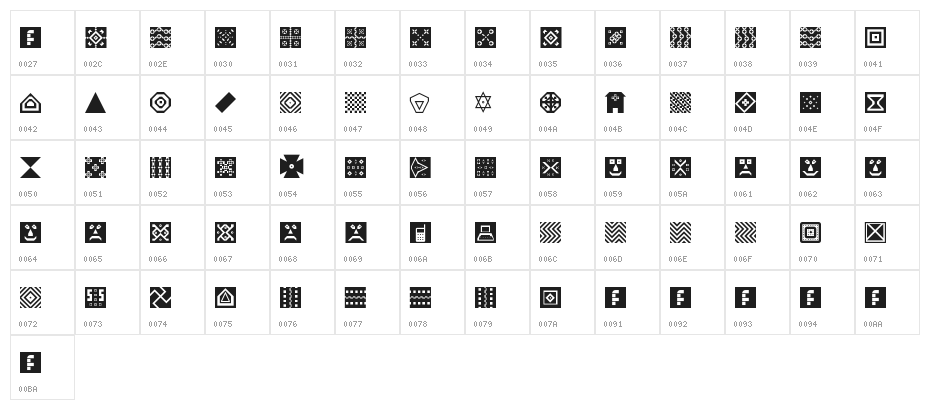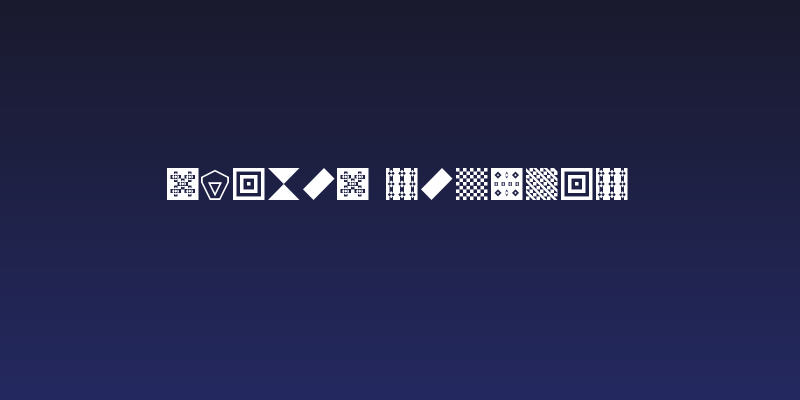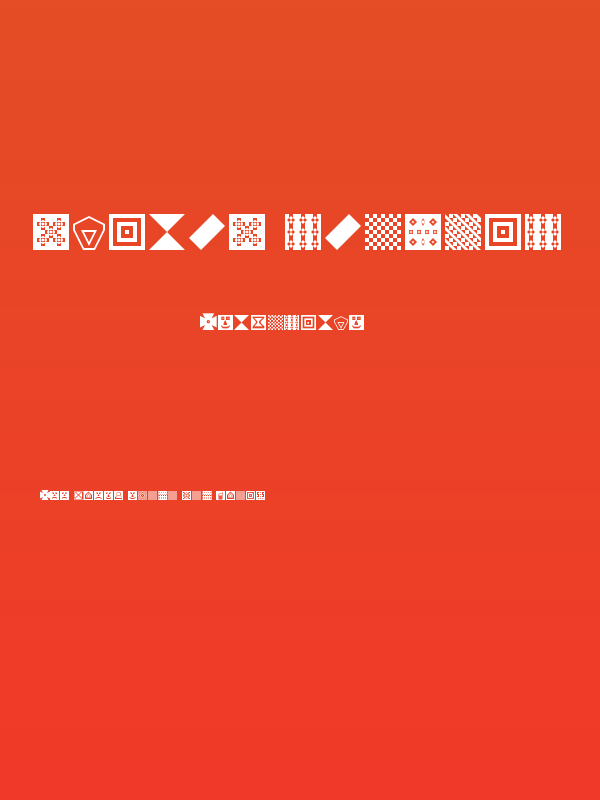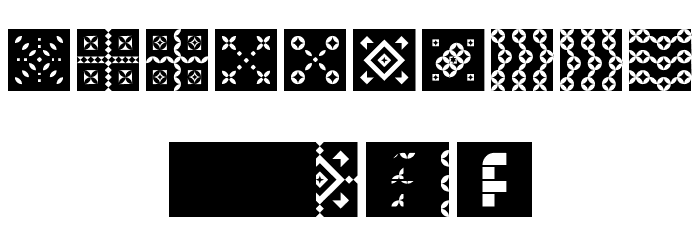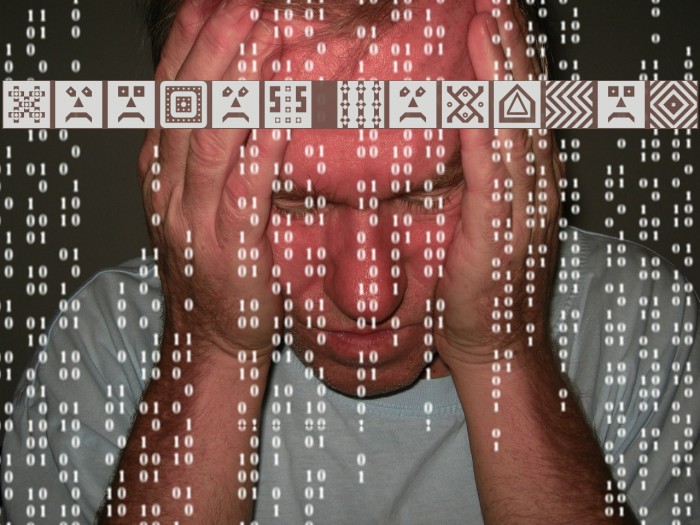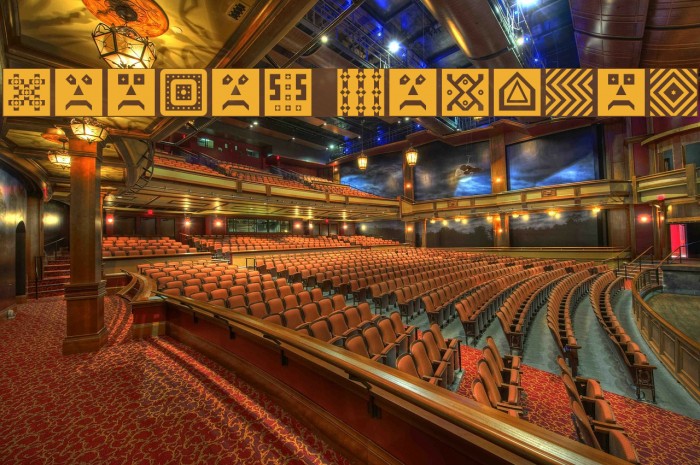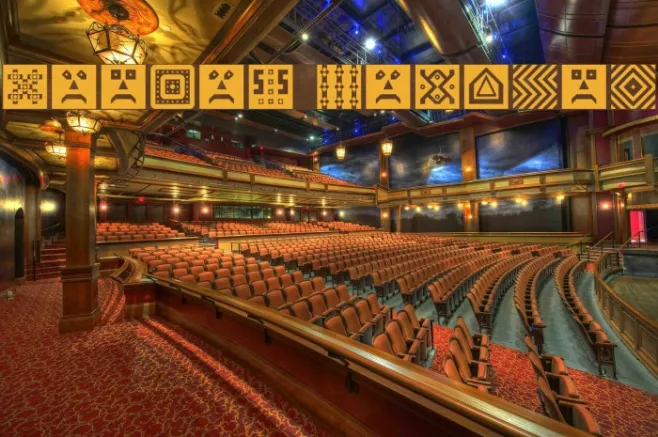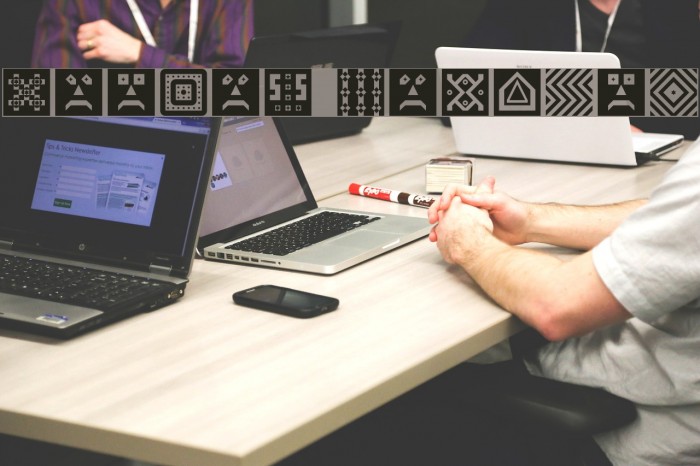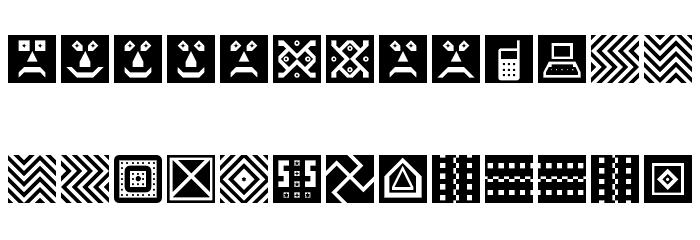
Shapes Regular Font
Shapes Regular Description
A decorative display font composed entirely of geometric shapes, patterns, and abstract symbols, each character represented by a unique black-and-white icon within a square or rectangular frame.
| Overall Style | Decorative, Abstract, Modern |
| Use Case | Logos, Posters, Visual puzzles, Branding, Art projects |
| Proposed Projects | Posters, branding, visual puzzles, educational materials, creative headers, digital art, and pattern design. |